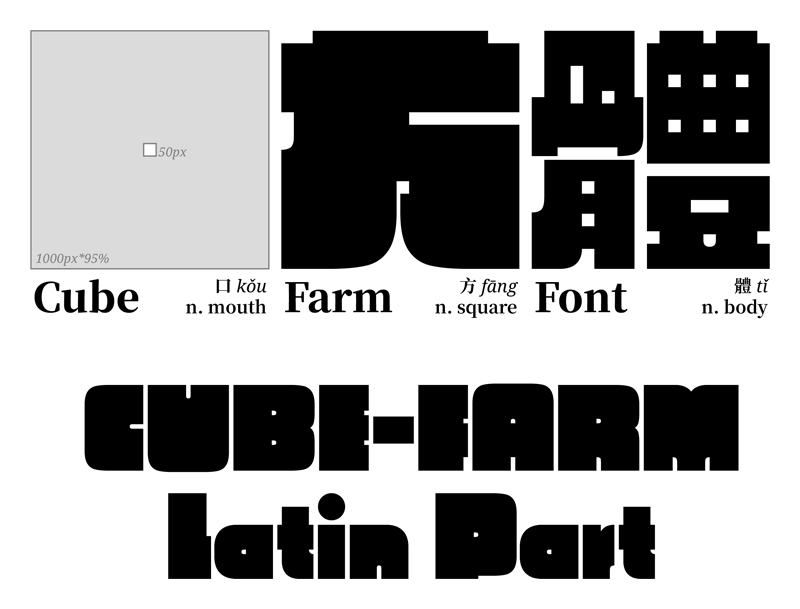
Font name: | CubeFarm Latin |
Author: | ErikYin |
This font is expanding from my Chinese font creation CubeFarm Font & Thank you watching and used this! This font used commercially is USD$25 for a one time payment. You can pay this by my PayPal and I'll send you a License Agreement. more detail: https://www.behance.net/gallery/62767633/-CubeFarm-Font-(Latin) This font is free for personal use. If you want commercial use or have any question plz contact me use email: erikin1205[at]gmail[dot]com |